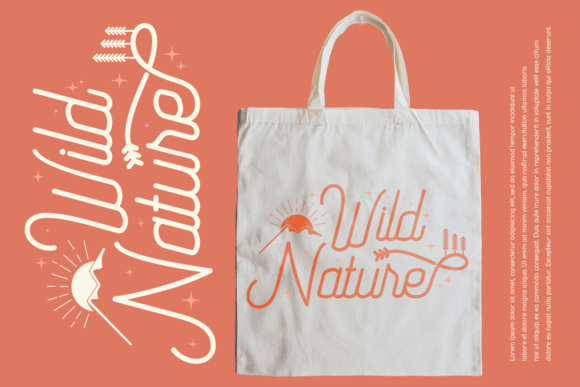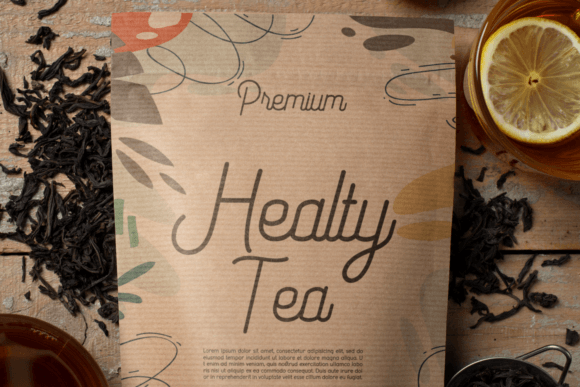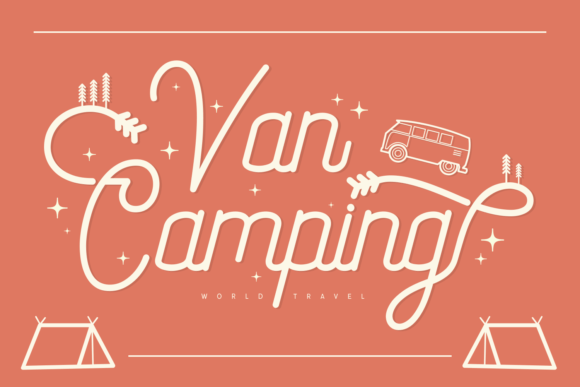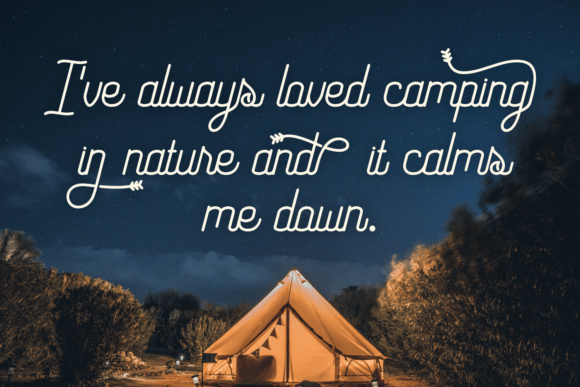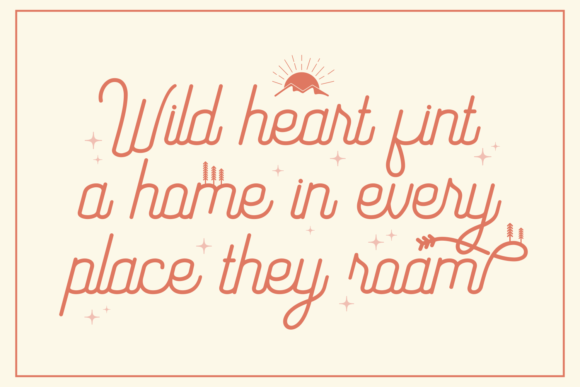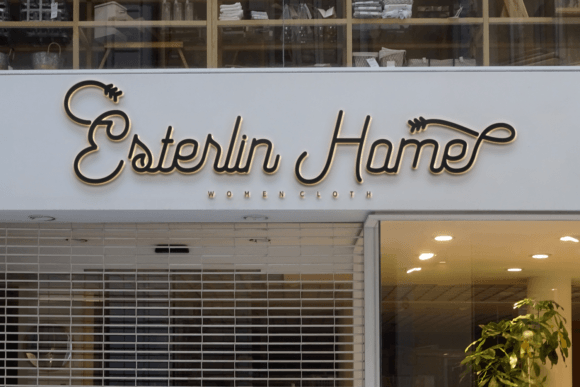
Brown Camper: The Ultimate Stylish and Elegant Handwritten Font
Are you tired of using the same old fonts in your designs? Look no further than Brown Camper, a stylish and elegant handwritten font that adds a touch of sophistication to any project. With its subtle vintage vibe, Brown Camper is the perfect addition to your font library, capable of elevating any creation to new heights.
The Characteristics of Brown Camper
Brown Camper is a beautifully crafted handwritten font that exudes elegance and refinement. Its subtle vintage undertones give it a unique charm that sets it apart from other fonts. The font’s design is characterized by:
- Stylish and elegant letterforms: Each letter is carefully crafted to create a sense of luxury and sophistication.
- Subtle vintage vibe: A hint of nostalgia and classic charm that adds depth to any design.
- PUA encoded: Making it easy to access all glyphs and ligatures, giving you maximum creative flexibility.
The Benefits of Using Brown Camper
Brown Camper is more than just a pretty font – it’s a versatile design tool that can enhance any project. Here are just a few benefits of using Brown Camper:
- Enhance any creation: Whether you’re designing a logo, creating a social media graphic, or crafting a website, Brown Camper can add a touch of elegance and sophistication.
- Stand out from the crowd: With its unique vintage vibe and stylish letterforms, Brown Camper can help your designs stand out in a crowded marketplace.
- Easy to use: With PUA encoding, you can easily access all glyphs and ligatures, making it simple to get the most out of the font.
Who Can Benefit from Brown Camper?
Brown Camper is a versatile font that can be used by a wide range of designers and crafters, including:
- Graphic designers: Looking for a stylish and elegant font to add to their designs.
- Web designers: Seeking a font that can add a touch of sophistication to their websites.
- Crafters: Creating handmade products, such as stationery, cards, and gifts.
- Digital artists: Looking for a font to add to their digital art and illustrations.
Tips for Getting the Most Out of Brown Camper
To get the most out of Brown Camper, here are a few tips:
- Experiment with different sizes and colors: To find the perfect combination for your design.
- Pair with other fonts: To create a unique and visually appealing typography combination.
- Use the glyphs and ligatures: To add an extra layer of creativity and interest to your design.
Brown Camper is a stylish and elegant handwritten font that can add a touch of sophistication to any design. With its subtle vintage vibe and PUA encoding, it’s the perfect addition to any font library. Whether you’re a graphic designer, web designer, crafter, or digital artist, Brown Camper is a versatile font that can help you create stunning designs that stand out from the crowd.